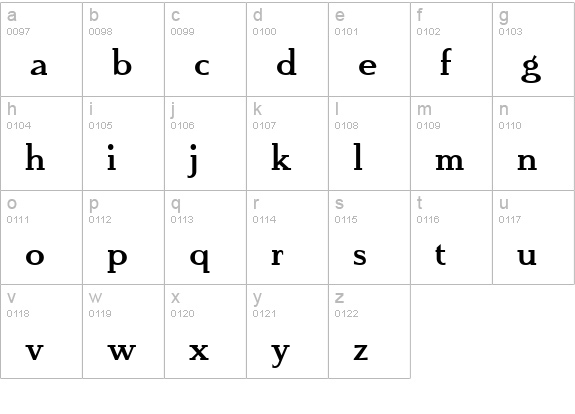
FlyHigh Bold is a strong, high-contrast variant in the FlyHigh typeface family \xE2\x80\x94 well suited to headlines, attention-grabbing titles, and strong calls-to-action.
Introducing FlyHigh Bold font, a striking and modern typeface designed to make your designs stand out. This font features strong, bold lines that exude confidence and elegance, perfect for making a statement in your projects. With its sleek and versatile design, FlyHigh Bold is ideal for a wide range of creative applications, from branding to advertising to editorial design. And the best part? FlyHigh Bold is available for free download at FontsMarket.com, where you can easily access this stylish typeface to elevate your designs. So why wait? Download FlyHigh Bold today and take your projects to new heights with this eye-catching font.